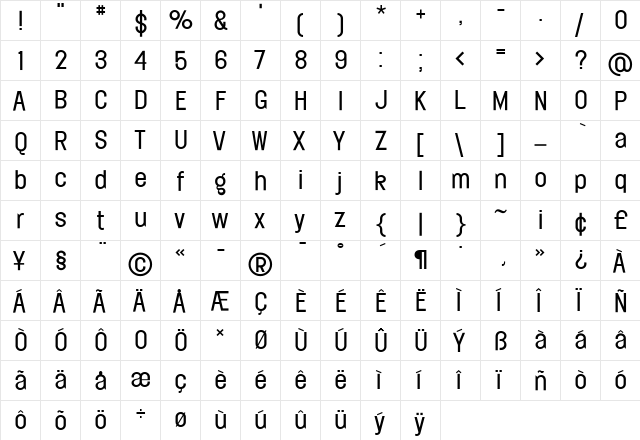
Elephant Light
Design Context for Elephant Typeface
Elephant is a composed and adaptable typeface that performs quietly and consistently across a wide range of design contexts. The delicate stroke weight brings airiness and refinement to layouts.